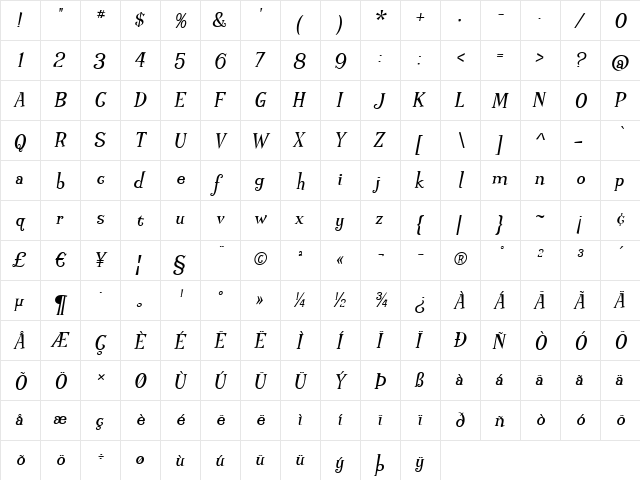
Pink Martini Italic Regular
Design Context for Pink Martini Italic Typeface
Pink Martini Italic is a composed and adaptable typeface that performs quietly and consistently across a wide range of design contexts. The dynamic lean of this cut emphasises speed and emphasis in any layout.
Pro Tip: Use Pink Martini Italic for emphasis, pull quotes, and subheadings where its slanted energy can add rhythm to the layout.